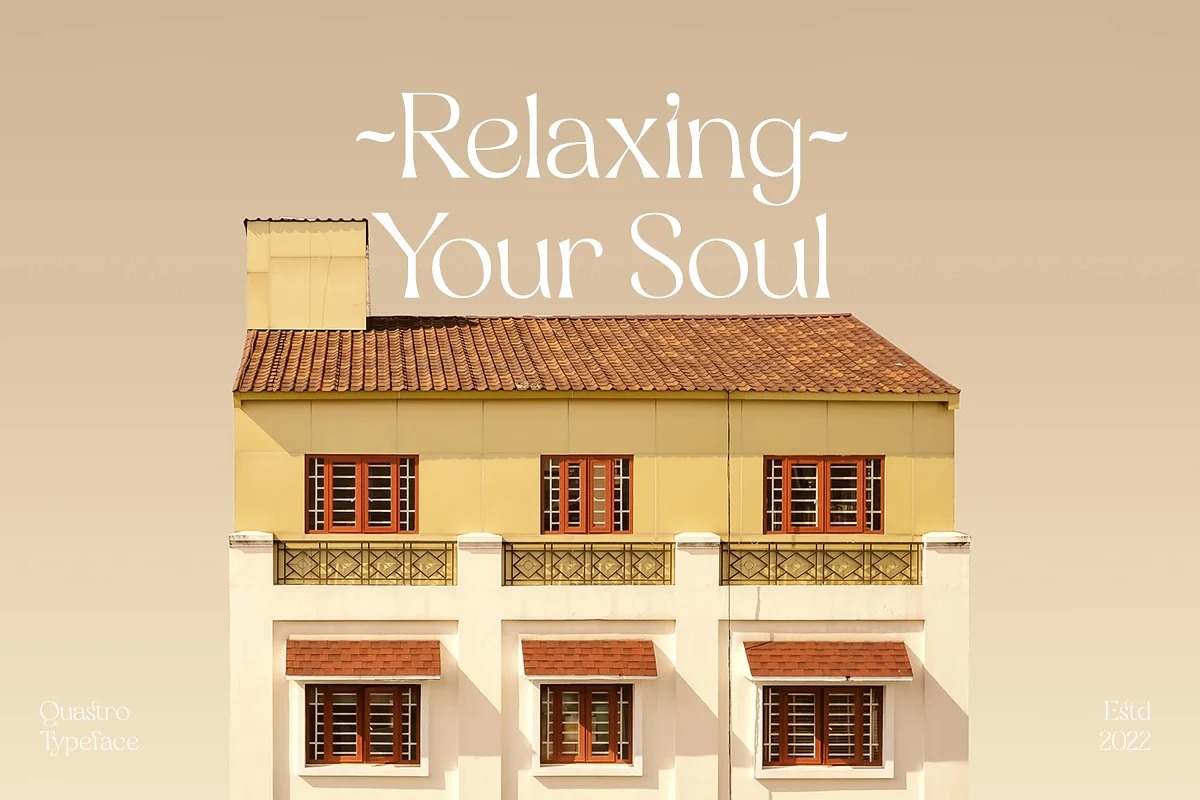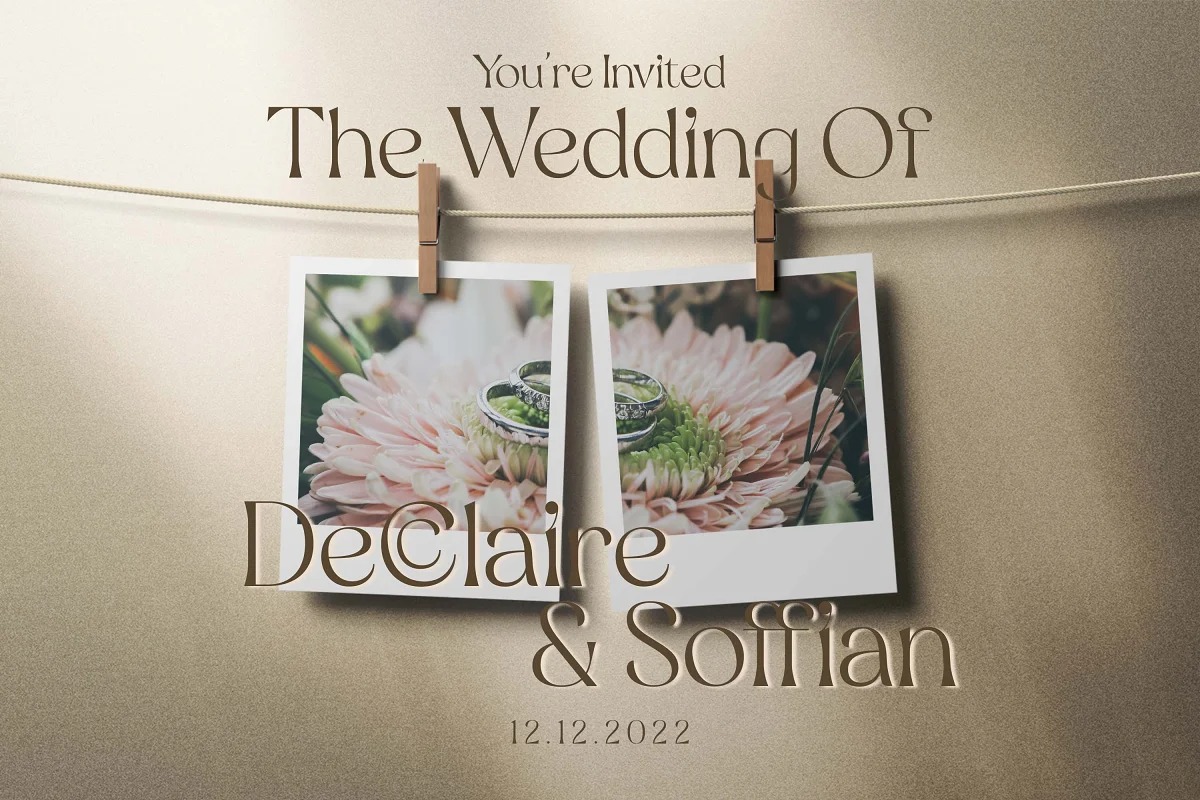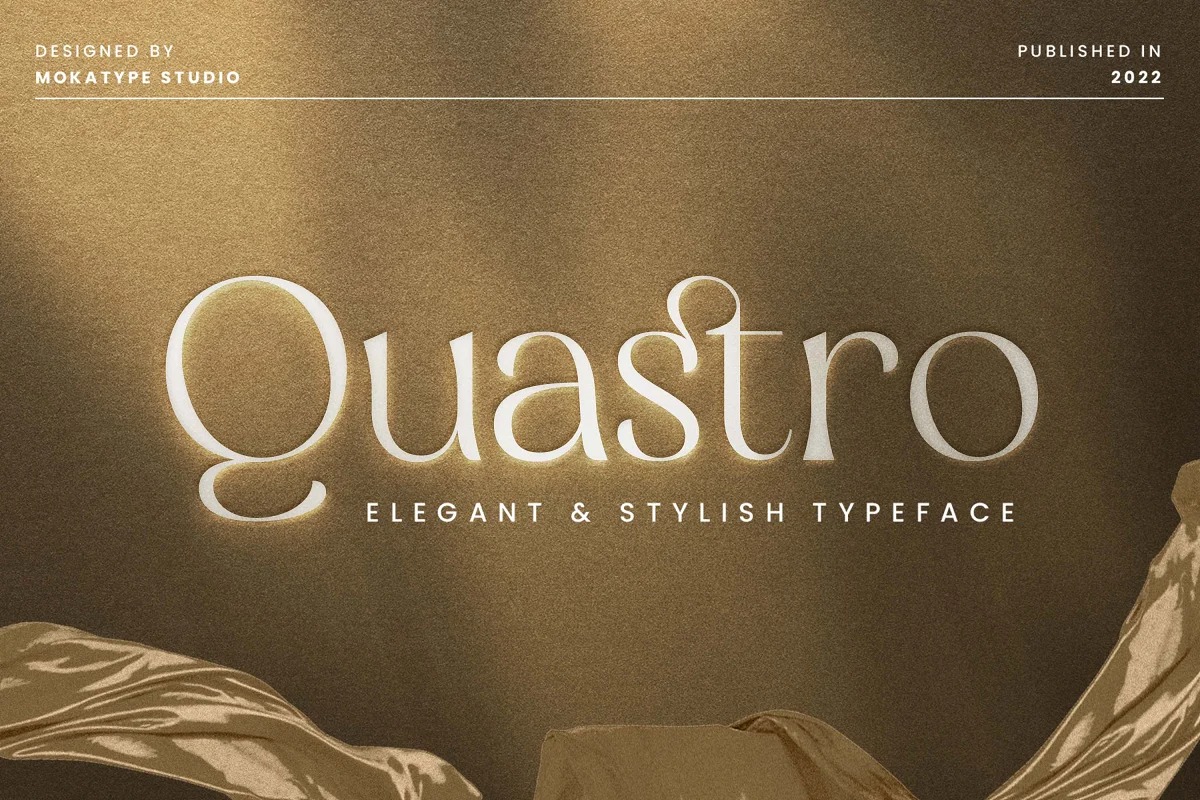
Quastro Serif Font is a luxury serif typeface created by Almarkhatype with beautifully crafted characters following the trend so you can use them very well. Perfect for adding a unique twist to word-mark logos, monograms or pull quotes.Quastro has 12 ligatures can be turned off if required standard writing needs.